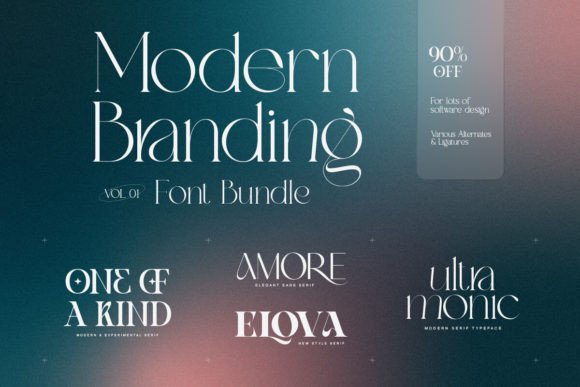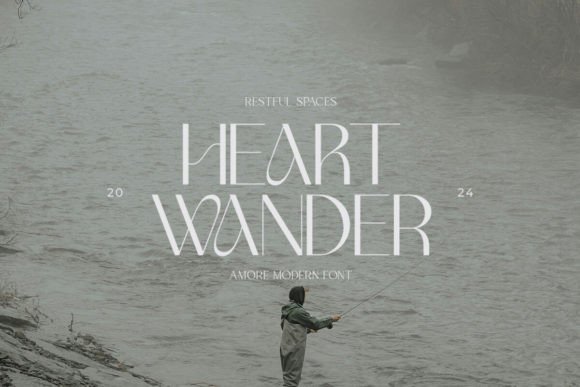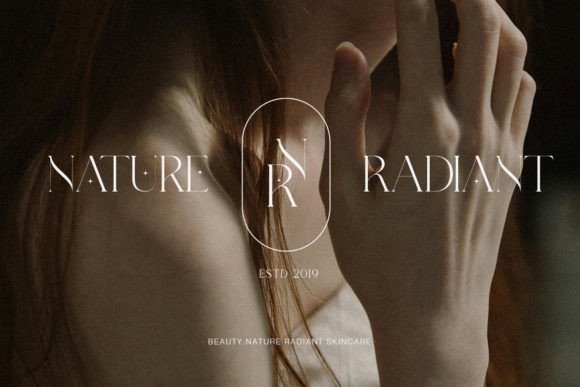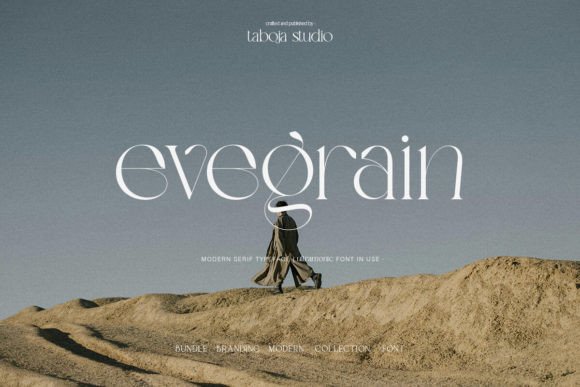
Modern Branding Bundle Font
With this Modern Branding Font Collection, you can design stylish logotypes for your clients, and create gorgeous branding, logos, blogs, social media, wedding invitations, posters, magazines, and others.
* Amore Font
* Elova Font
* One Of A Kind Font
* Ultra Monic Font